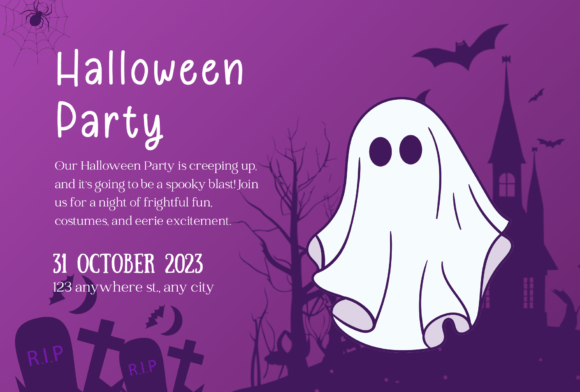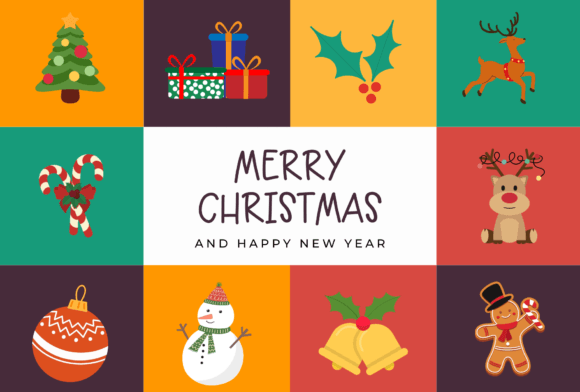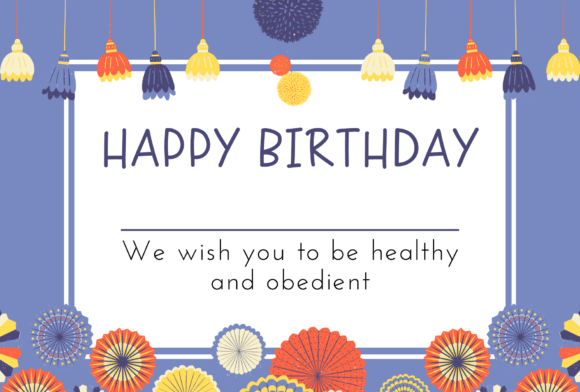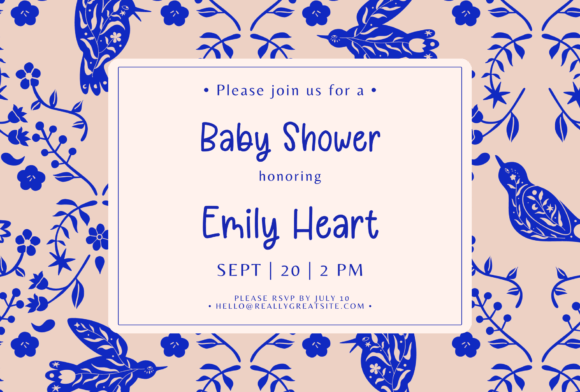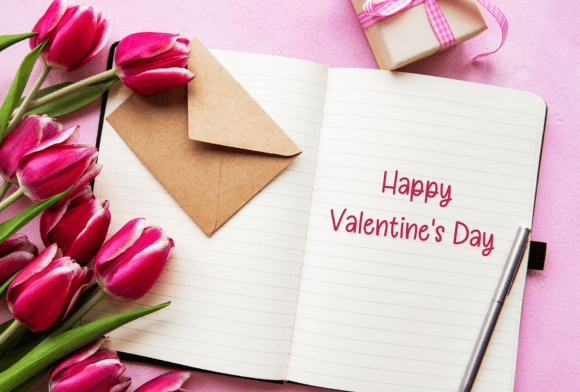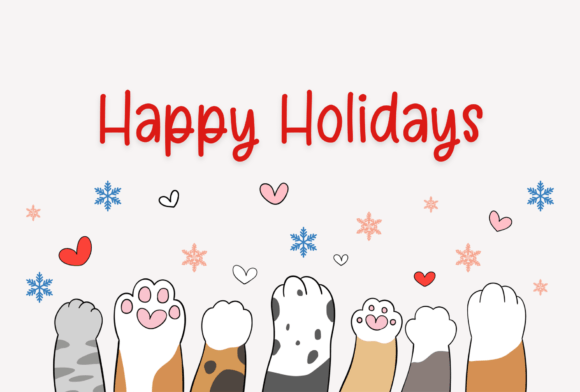
Introducing Amethyst Font: The Perfect Handwritten Font for Your Creative Projects
Are you a designer, crafter, or DIY enthusiast looking for a unique and playful font to add a personal touch to your projects? Look no further than Amethyst Font, a cute and quirky handwritten font that’s perfect for a variety of creative applications. In this article, we’ll explore the features and benefits of Amethyst Font, and show you how to make the most of this versatile font in your designs.
What is Amethyst Font?
Amethyst Font is a beautiful, hand-crafted font that’s designed to add a touch of whimsy and personality to your projects. With its playful, cursive strokes and charming imperfections, Amethyst Font is perfect for creating unique and eye-catching designs that stand out from the crowd. Whether you’re creating birthday cards, Christmas cards, Mother’s Day cards, or Valentine’s cards, Amethyst Font is the perfect choice.
Uses for Amethyst Font
Amethyst Font is incredibly versatile, and can be used for a wide range of creative projects, including:
- Stationery and Cards: Use Amethyst Font to create one-of-a-kind birthday cards, Christmas cards, Mother’s Day cards, and Valentine’s cards that are sure to delight your loved ones.
- T-Shirts and Apparel: Add a playful touch to your t-shirt designs, hoodies, and other apparel with Amethyst Font.
- Mugs and Home Decor: Use Amethyst Font to create fun and functional mugs, pillows, keychains, and other home decor items.
- Planners and Stickers: Add a personal touch to your planners, stickers, and other stationery items with Amethyst Font.
Benefits of Using Amethyst Font
So why choose Amethyst Font for your creative projects? Here are just a few benefits of using this amazing font:
- Unique and Playful: Amethyst Font is a one-of-a-kind font that’s sure to add a touch of personality to your designs.
- Easy to Read: Despite its playful nature, Amethyst Font is incredibly easy to read, making it perfect for both digital and print applications.
- Versatile: Amethyst Font can be used for a wide range of creative projects, from stationery and cards to apparel and home decor.
- Cute and Quirky: Amethyst Font has a charming, whimsical feel that’s sure to delight your audience.
Tips for Using Amethyst Font
Here are a few tips for getting the most out of Amethyst Font:
- Experiment with Colors: Amethyst Font looks amazing in a variety of colors, so don’t be afraid to experiment and find the perfect hue for your design.
- Mix and Match: Combine Amethyst Font with other fonts and graphics to create unique and eye-catching designs.
- Keep it Simple: Don’t overcomplicate your design – Amethyst Font is perfect for simple, yet effective designs.
Amethyst Font is a beautiful, versatile font that’s perfect for designers, crafters, and DIY enthusiasts. With its playful, cursive strokes and charming imperfections, Amethyst Font is sure to add a touch of personality to your creative projects. Whether you’re creating stationery and cards, apparel, home decor, or planners and stickers, Amethyst Font is the perfect choice. So why wait? Download Amethyst Font today and start creating unique and eye-catching designs that stand out from the crowd!